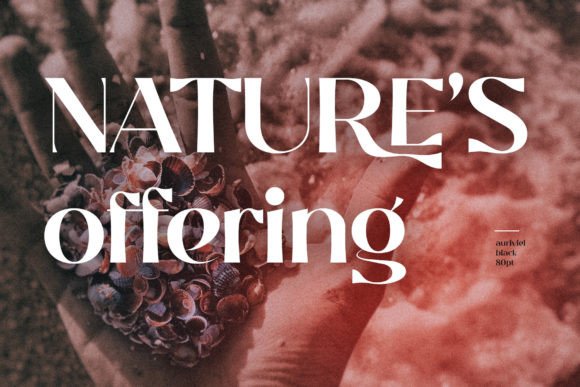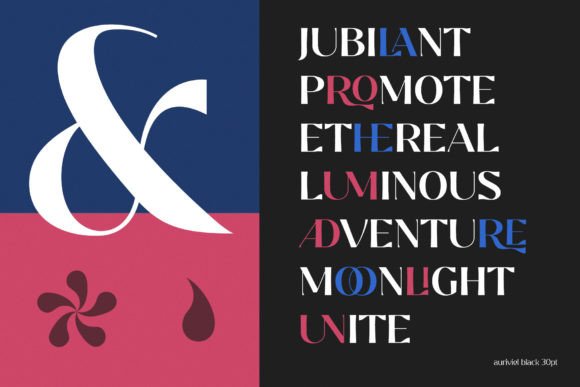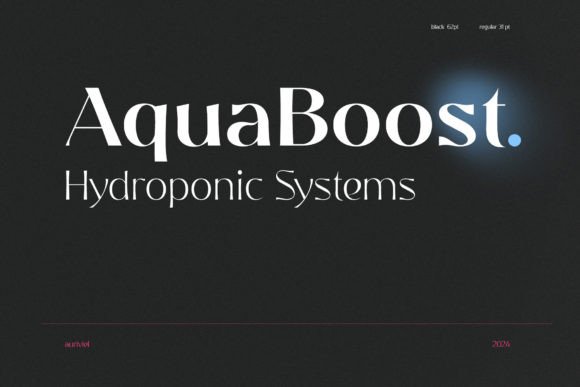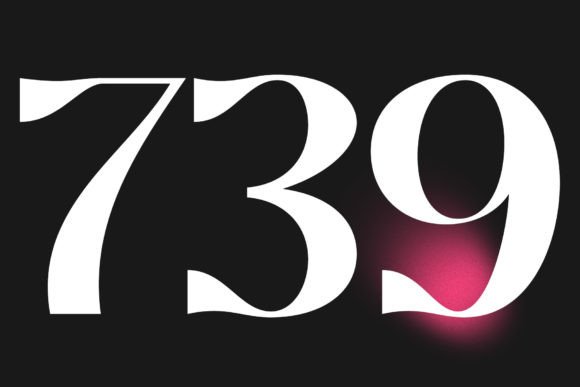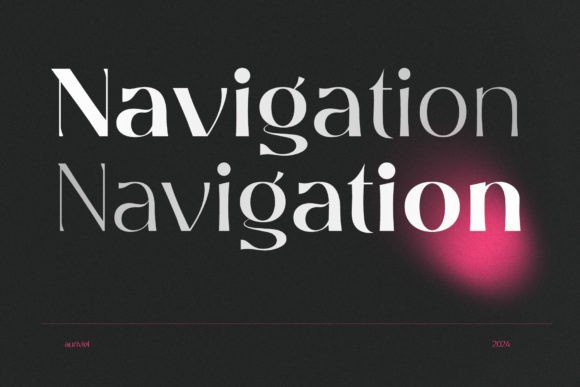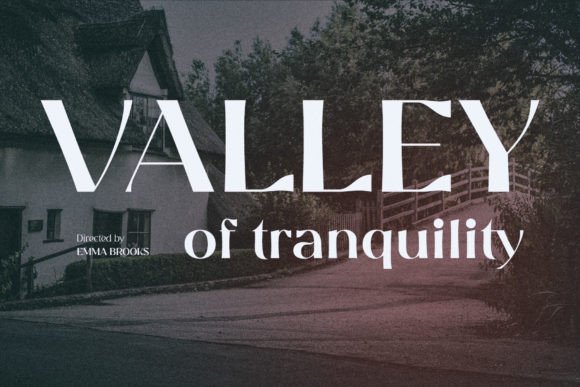
I still remember the frustration of working on a project, hours spent crafting the perfect design, only to hit a roadblock: finding the right font. My client wanted something elegant, sophisticated, and eye-catching – but not too flashy. I scoured font libraries, but nothing seemed quite right. That was until I stumbled upon Auriviel, an elegant display font that has since become a staple in my design toolkit.
Auriviel: The Perfect Blend of Style and Sophistication
Auriviel is a stunning display font inspired by the natural world. Its high contrast and graceful ligatures bring a touch of refinement to any project, making it perfect for striking headlines, refined branding, and artistic designs. With multiple weights available, Auriviel offers versatility and style, ensuring that it can adapt to a wide range of design needs.
What I Love About Auriviel
- ✨ Elegant and sophisticated design that’s perfect for high-end branding and marketing materials
- ✅ High contrast and graceful ligatures that add a touch of refinement to any project
- 🌟 Multiple weights available, ensuring versatility and adaptability
- 📦 Perfect for logos, marketing materials, advertising campaigns, branding, and packaging design
While Auriviel is an exceptional font, there are a few quirks to be aware of:
- 🤔 Some users may find the font’s high contrast can make it challenging to read in smaller sizes
- ⚠️ Limited availability of certain OpenType features in certain software applications
The Story Behind Auriviel
Auriviel was designed by a team of typographers who drew inspiration from the natural world. With a passion for elegance and sophistication, they crafted a font that would bring a touch of refinement to any project. From the intricate details to the flowing ligatures, Auriviel is a true masterpiece of typographic design.
| Font Name | Auriviel Font |
| Author | Plotomad |
| What is Auriviel’s primary use case? | Auriviel is perfect for logos, marketing materials, advertising campaigns, branding, and packaging design. |
| Is Auriviel suitable for body text? | While Auriviel is an elegant font, its high contrast may make it challenging to read in smaller sizes. It’s best used for headlines and titles. |
| Does Auriviel support OpenType features? | Yes, Auriviel supports a range of OpenType features, including ligatures, stylistic alternates, and glyphs. |